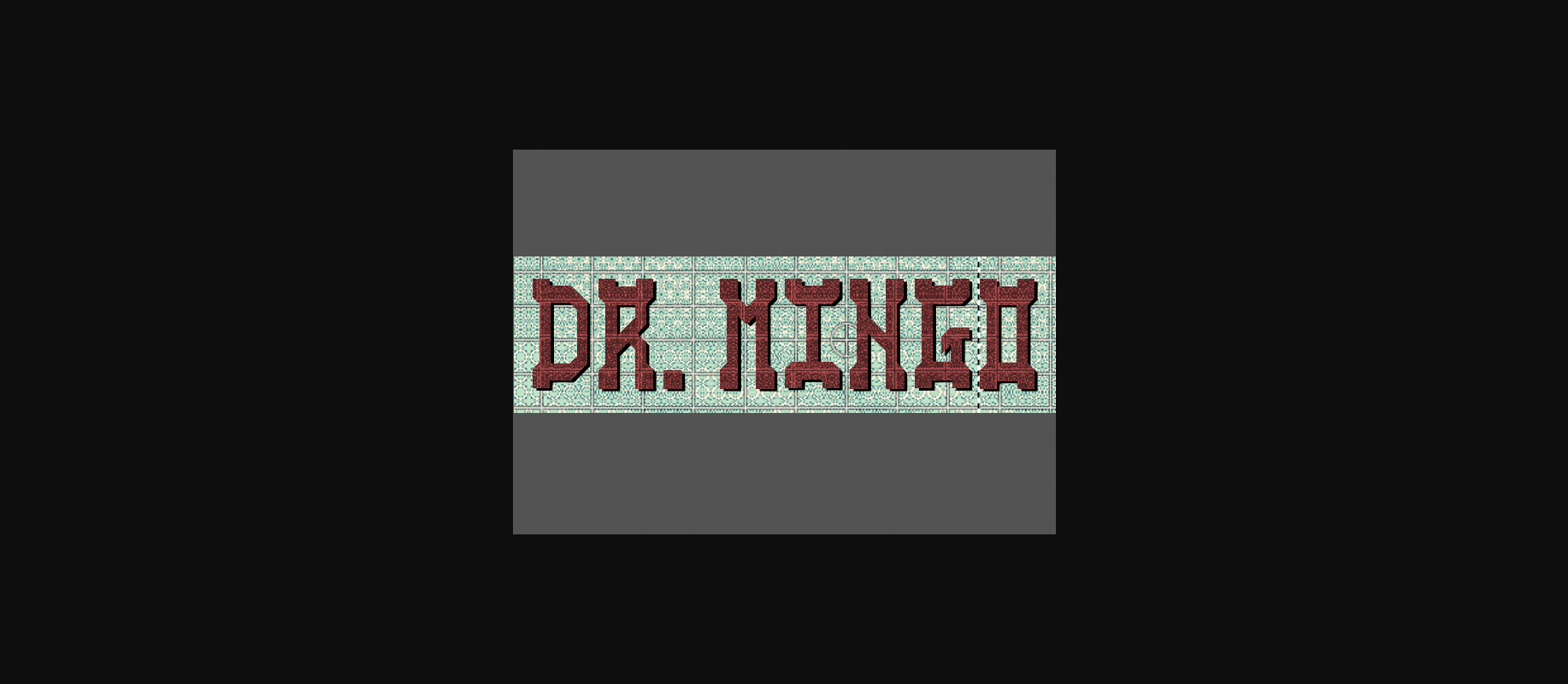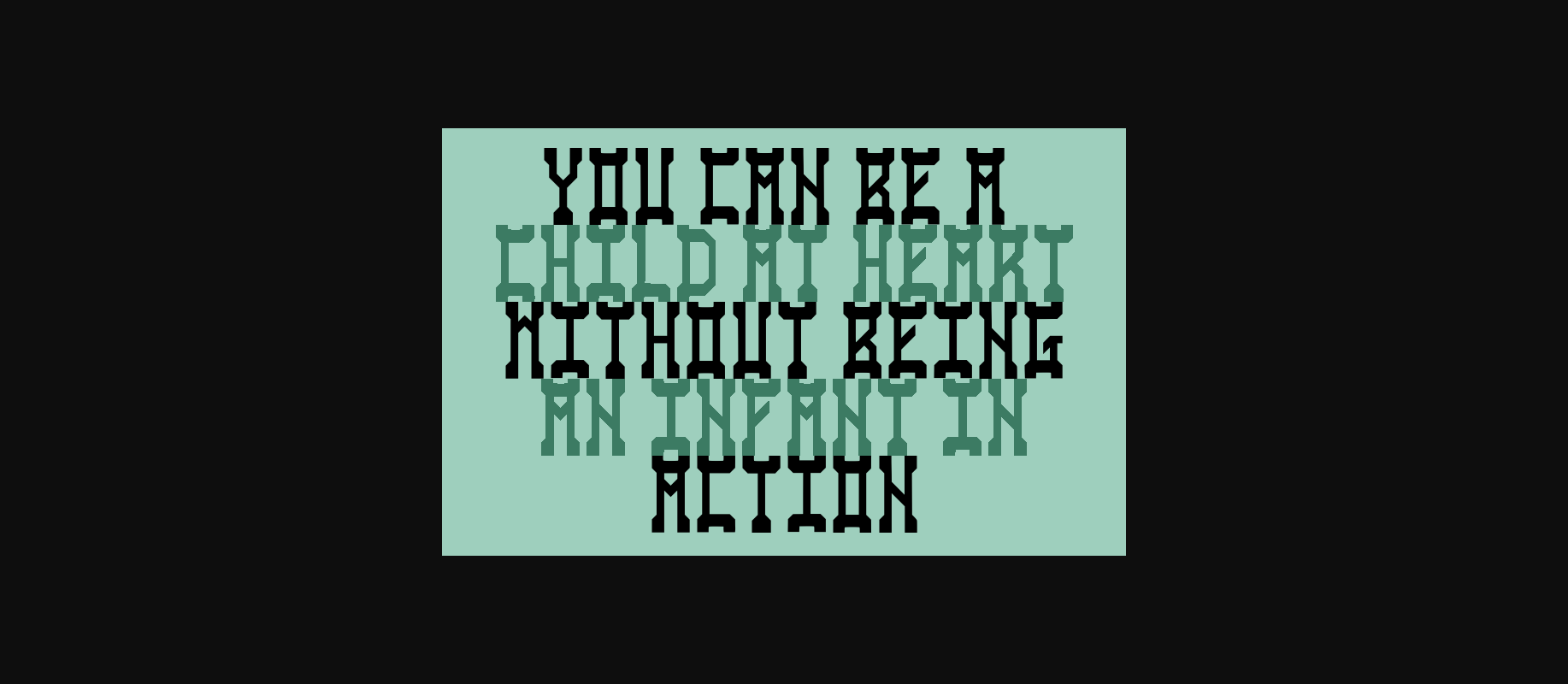
About Doctor Mingo Font
Doctor Mingo is a playful and classic decorative font that contains elements of traditional serif fonts. Get inspired by its unique approach to lettering!